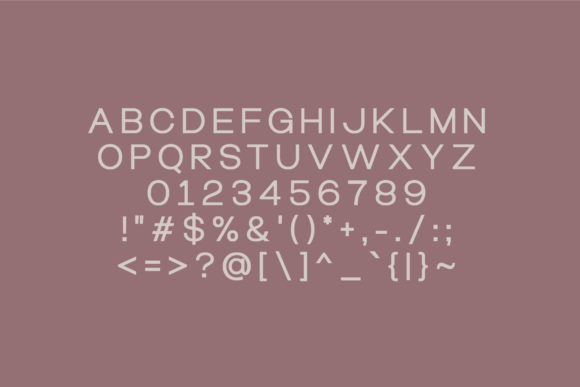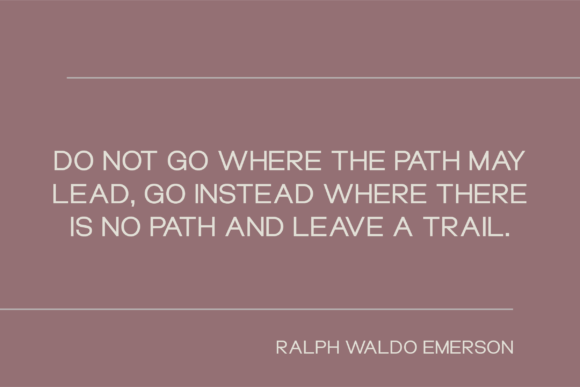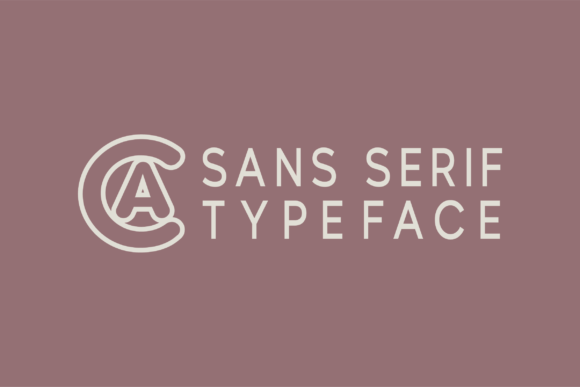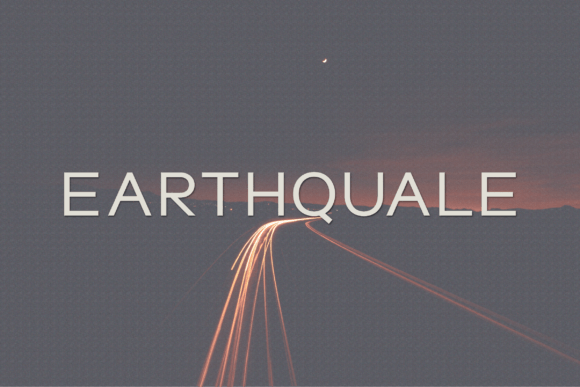
Unveiling Earthquale: The Epitome of Modern Elegance in Sans Serif Typefaces
In the realm of typography, the right font can elevate a design from ordinary to extraordinary. For designers and crafters seeking a typeface that embodies modern elegance and versatility, look no further than Earthquale. This cutting-edge sans serif font is designed to make a statement, offering a comprehensive set of characters that can enhance any project.
The Earthquale Advantage: A Comprehensive Character Set
Earthquale boasts an impressive character set, featuring majestic upper-case characters, numerals from 0 to 9, a wide array of punctuations, and symbols. This extensive range of characters makes Earthquale a universal choice for various design applications. Whether you’re working on a logo, wedding invitation, quote, advertisement, or magazine, Earthquale has the versatility to adapt and elevate your design.
Elevate Your Designs with Earthquale
Earthquale’s sleek and modern design makes it an ideal choice for designers looking to add a touch of sophistication to their work. Here are just a few ways Earthquale can enhance your designs:
- Logos: Earthquale’s bold and elegant characters make it perfect for creating stunning logos that capture the essence of a brand.
- Wedding Invitations: Add a touch of luxury and romance to your wedding invitations with Earthquale’s beautiful and sophisticated design.
- Quotes: Give your quotes a magical touch with Earthquale’s elegant and refined characters.
- Advertisements: Earthquale’s modern design and versatility make it an excellent choice for creating eye-catching advertisements that grab attention.
- Print and Magazines: Earthquale’s clean and crisp design ensures that your print materials and magazine layouts look professional and polished.
Crafting Spellbinding Designs with Earthquale
With Earthquale, designers and crafters can unleash their creativity and produce spellbinding designs that leave a lasting impression. Here are some tips for getting the most out of Earthquale:
- Experiment with Font Sizes: Earthquale’s versatility allows it to shine at various font sizes. Experiment with different sizes to find the perfect balance for your design.
- Play with Color: Earthquale’s clean design makes it an excellent choice for use with a wide range of colors. Experiment with different color schemes to add depth and interest to your design.
- Mix and Match: Combine Earthquale with other fonts to create a unique and visually appealing design.
Why Choose Earthquale?
With so many typefaces available, why choose Earthquale? Here are just a few reasons why Earthquale stands out:
- Unique Design: Earthquale’s modern and elegant design sets it apart from other sans serif typefaces.
- Versatility: Earthquale’s comprehensive character set makes it suitable for a wide range of design applications.
- Ease of Use: Earthquale is easy to use and pairs well with other fonts, making it a great addition to any designer’s toolkit.
In conclusion, Earthquale is a game-changing typeface that offers a perfect blend of modern elegance and versatility. Whether you’re a designer, crafter, or simply someone looking to elevate your design skills, Earthquale is an excellent choice. With its comprehensive character set, sleek design, and ease of use, Earthquale is poised to become a go-to font for anyone looking to create stunning designs that leave a lasting impression.